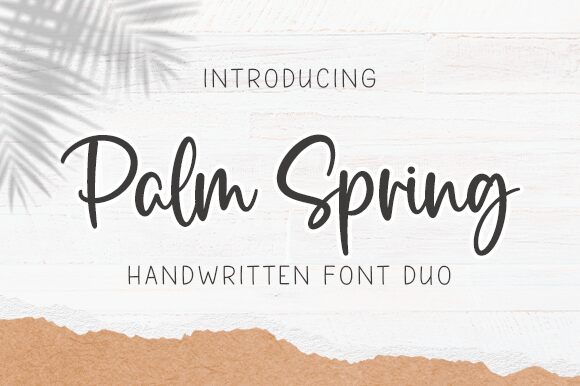
Palm Spring
Discover the effortless charm of Palm Spring, a handwritten font duo meticulously crafted by Graphix Line Studio. With its semi-light weight and delightful pairing of script and sans styles, Palm Spring exudes an air of casual elegance that's perfect for a myriad of creative endeavors.
Whether you're designing heartfelt invitations, branding materials with a personal touch, or playful merchandise that demands attention, these fonts blend seamlessly to elevate your project with their chic and cheery aesthetic.
Immerse yourself in the versatility of Palm Spring and let your designs bloom with personality.